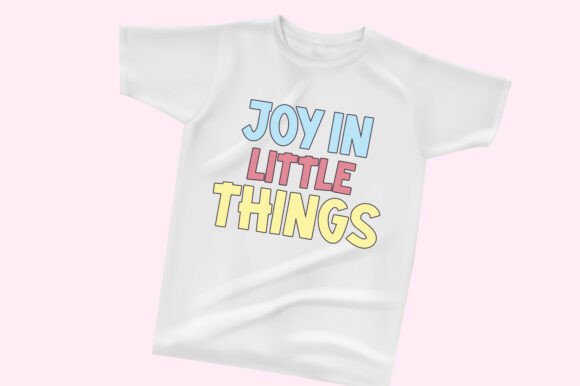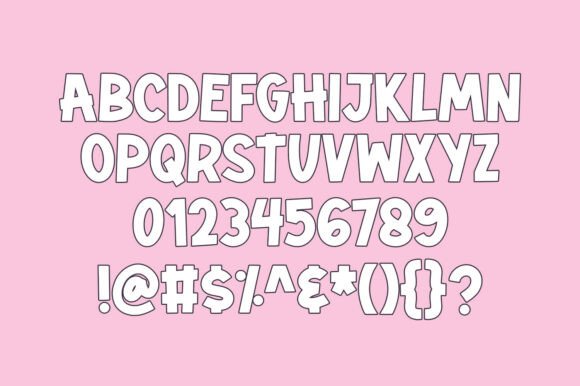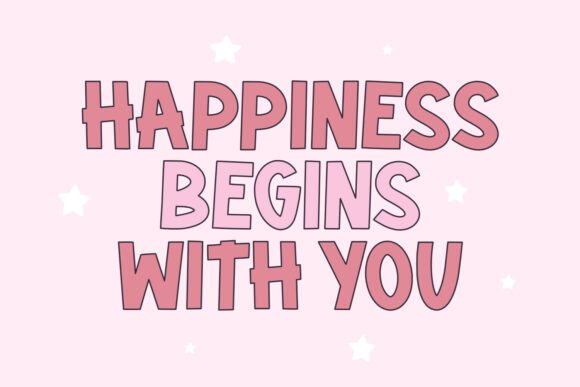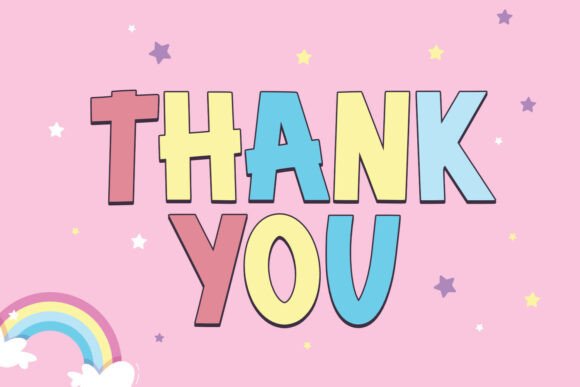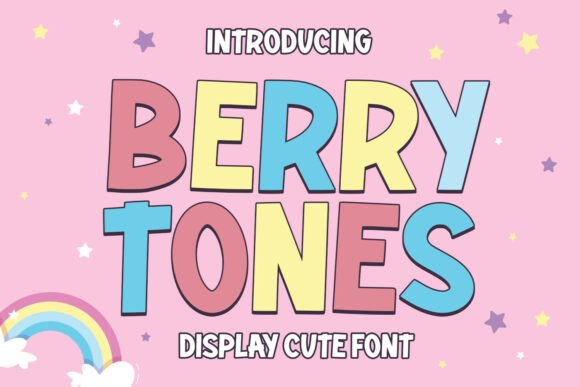
The Joy of Berry Tones Font: A Designer’s Delight
I’ll never forget the time I was working on a project for a kids’ birthday party invitation. I had the design concept nailed, but I just couldn’t find the right font to bring it all together. The client wanted something cheerful, playful, and fun – but not too childish. That’s when I stumbled upon Berry Tones Font, and it was love at first sight! 💕
Berry Tones is a handwritten display font that bursts with energy and playfulness. It’s like a breath of fresh air, making every word feel like a celebration. In this article, I’ll share my honest review of Berry Tones, a step-by-step guide on how to use it, and some helpful tips and tricks.
Honest Review: What I Love and Some Quirks
- ✨ Playful and cheerful: Berry Tones is the perfect font for projects that need a touch of delight. It’s like a sprinkle of magic dust on your design!
- ✅ Highly legible: Despite its playful nature, Berry Tones is surprisingly easy to read, even in smaller sizes.
- 🎉 Versatile: This font is perfect for party invitations, kids’ products, fun branding, and anything that needs a dash of whimsy.
Some Quirks to Consider 🤔
- ⚠️ Limited use cases for formal designs: Berry Tones is a playful font, so it’s not the best choice for formal or professional projects.
- 🤔 Some letters may require adjusting: Depending on the word or phrase, some letters may need adjusting to ensure proper spacing and alignment.
Berry Tones was designed with the intention of capturing the essence of childlike wonder and pure happiness. The designer wanted to create a font that would bring smiles to people’s faces and make every word feel like a celebration. With its playful and cheerful personality, Berry Tones is sure to delight designers and audiences alike.
Q: What type of projects is Berry Tones best suited for?
A: Berry Tones is perfect for party invitations, kids’ products, fun branding, and anything that needs a touch of delight.